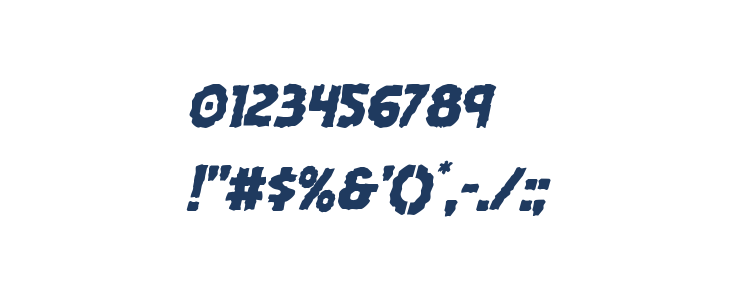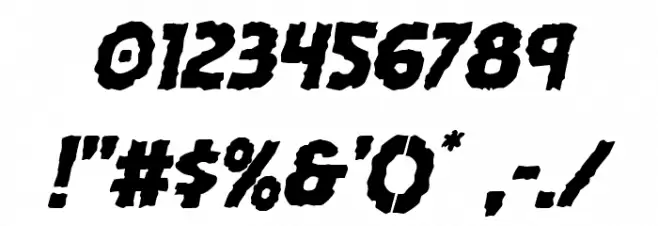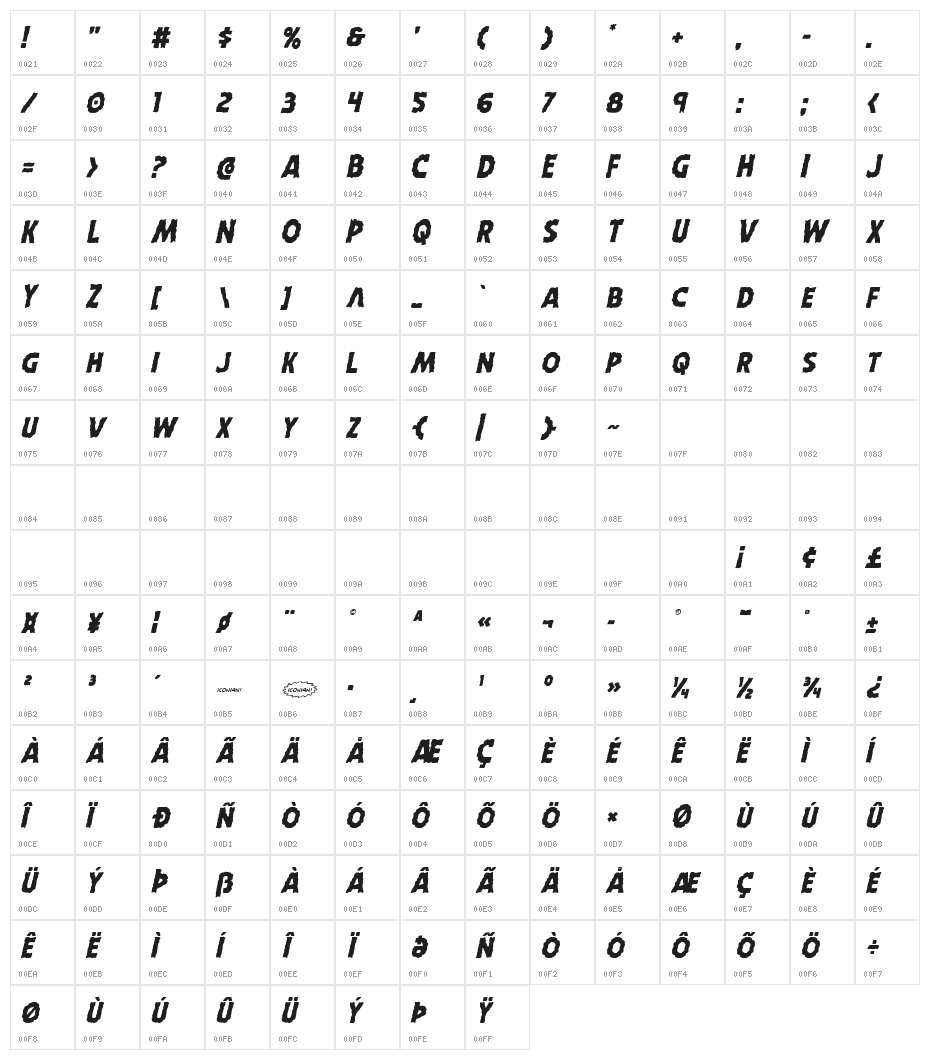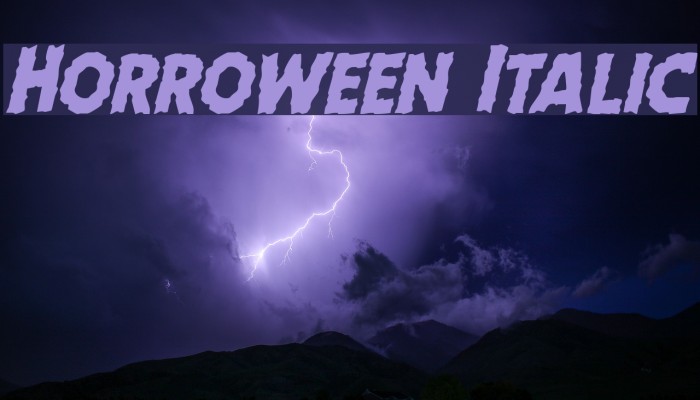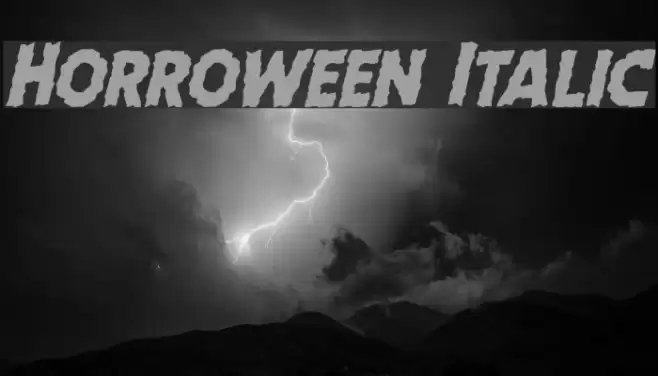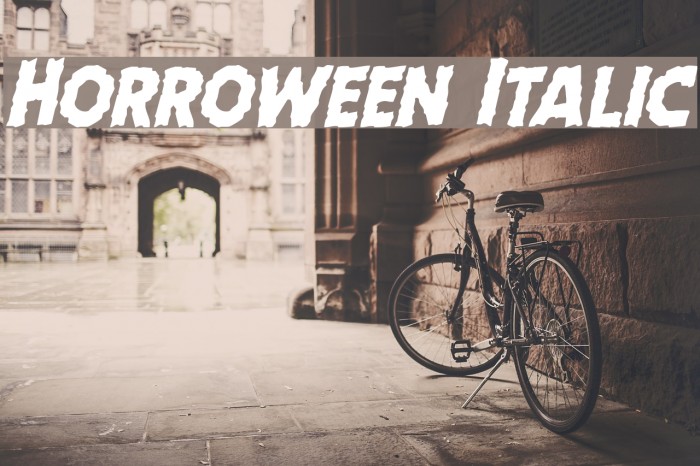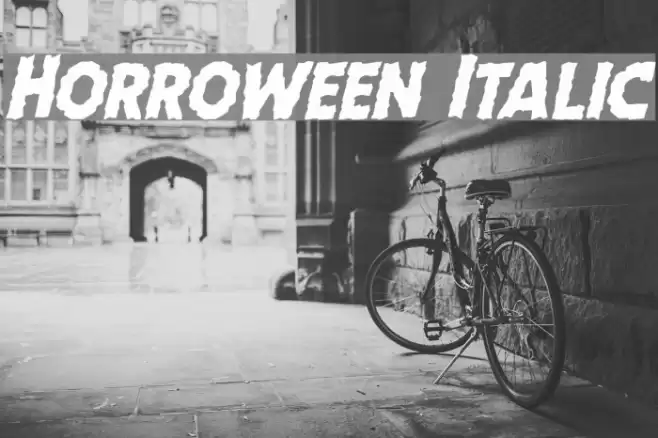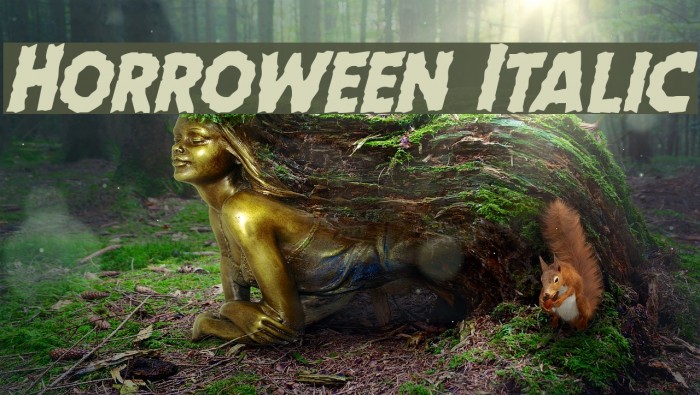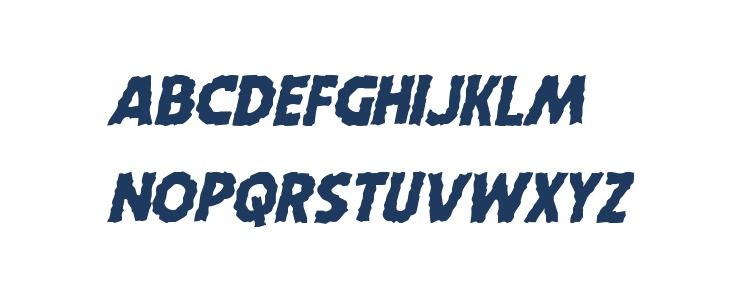
Horroween Italic Font
Horroween Italic Description
This font features a bold and jagged style, reminiscent of classic horror themes. The characters are designed with irregular edges, giving them a distressed and eerie appearance. The uppercase and lowercase letters maintain a consistent style, with a slight slant that adds to the dynamic and unsettling look. Numbers and special characters follow the same aesthetic, ensuring a cohesive design throughout. This font is ideal for creating a spooky atmosphere, perfect for Halloween-themed projects or anything requiring a touch of the macabre.
| Proposed Projects | Ideal for Halloween invitations, horror movie posters, themed party decorations, and spooky event flyers. |